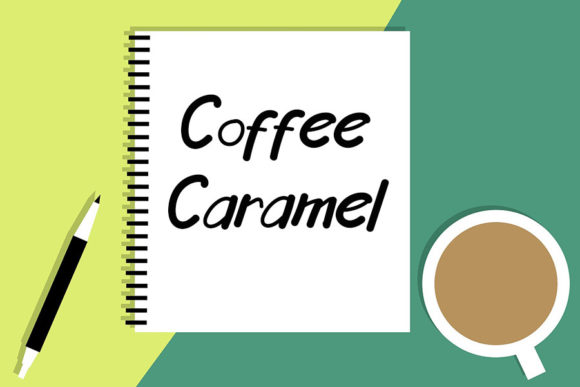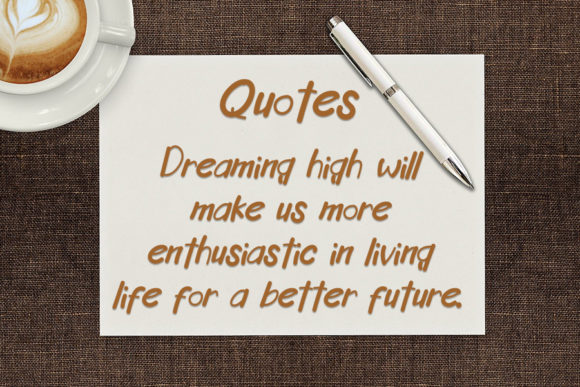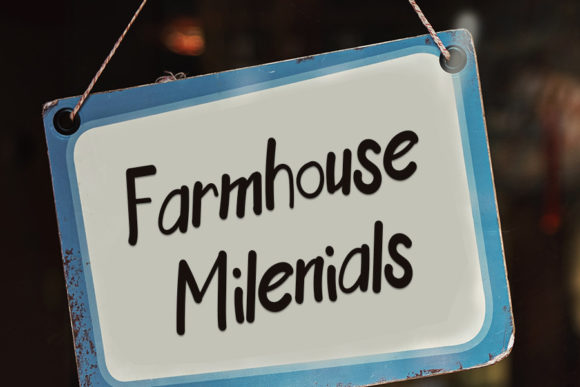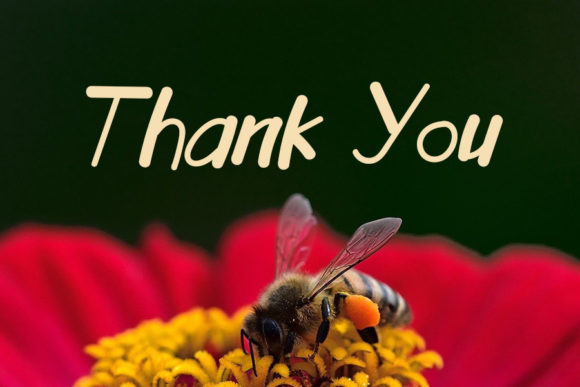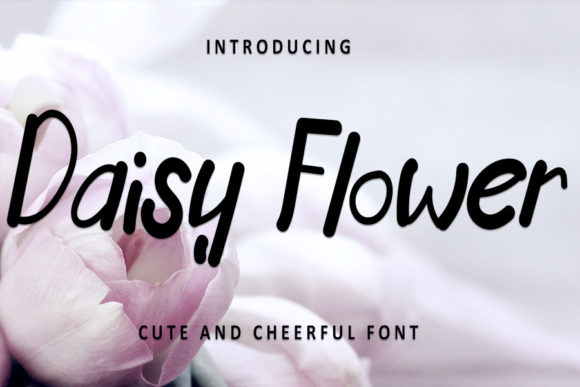
Daisy Flower Font: The Perfect Choice for Elegant and Charming Designs
Are you looking for a font that exudes charm and elegance? Look no further than the Daisy Flower Font. This beautiful handwritten font is perfect for designers and crafters who want to add a touch of sophistication to their designs. In this article, we’ll explore the features and benefits of the Daisy Flower Font, and how it can elevate your designs to the next level.
What is Daisy Flower Font?
Daisy Flower Font is a stunning handwritten font that is inspired by the delicate and charming daisy flower. The font features elegant and flowing lines, with a subtle whimsy that makes it perfect for a variety of design projects. Whether you’re creating wedding invitations, thank you cards, quotes, greeting cards, logos, or business cards, the Daisy Flower Font is sure to impress.
Features of Daisy Flower Font
The Daisy Flower Font has several features that make it a standout choice for designers and crafters. Some of its key features include:
- Elegant and charming design: The Daisy Flower Font has a beautiful, flowing design that is both elegant and charming.
- Handwritten feel: The font has a subtle handwritten feel that adds a touch of warmth and personality to your designs.
- Versatile: The Daisy Flower Font is perfect for a variety of design projects, from wedding invitations to business cards.
- Easy to read: Despite its elegant design, the Daisy Flower Font is easy to read, making it perfect for body text and quotes.
Benefits of Using Daisy Flower Font
So why should you choose the Daisy Flower Font for your designs? Here are just a few benefits of using this beautiful font:
- Adds a touch of elegance: The Daisy Flower Font adds a touch of elegance and sophistication to your designs, making them perfect for special occasions and formal events.
- Creates a personal touch: The handwritten feel of the Daisy Flower Font creates a personal touch that makes your designs feel more unique and special.
- Perfect for branding: The Daisy Flower Font is perfect for branding projects, such as logos and business cards, where you want to create a lasting impression.
Design Ideas Using Daisy Flower Font
The Daisy Flower Font is a versatile font that can be used for a variety of design projects. Here are a few ideas to get you started:
- Wedding invitations: The Daisy Flower Font is perfect for wedding invitations, adding a touch of elegance and romance to your design.
- Thank you cards: Use the Daisy Flower Font to create beautiful thank you cards that are perfect for special occasions.
- Quotes and posters: The Daisy Flower Font is perfect for creating inspirational quotes and posters that are both elegant and eye-catching.
- Greeting cards: Use the Daisy Flower Font to create beautiful greeting cards for special occasions, such as birthdays and holidays.
- Logos and business cards: The Daisy Flower Font is perfect for creating professional logos and business cards that make a lasting impression.
In conclusion, the Daisy Flower Font is a beautiful and elegant font that is perfect for designers and crafters who want to add a touch of sophistication to their designs. With its elegant design, handwritten feel, and versatility, the Daisy Flower Font is sure to become a favorite in your design arsenal. Whether you’re creating wedding invitations, thank you cards, quotes, greeting cards, logos, or business cards, the Daisy Flower Font is the perfect choice.